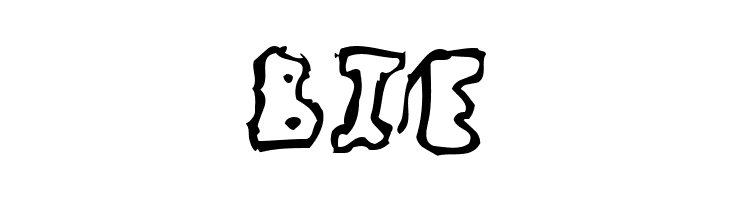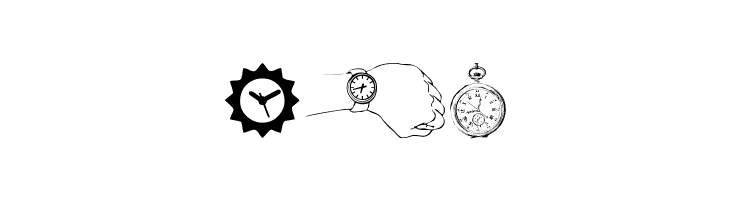
--wATCHMEn-- Font
A bold, modern font with thick strokes and tight spacing, perfect for impactful headlines.
Watchword Bold Demo Font
A bold, modern sans-serif font with clean lines and uniform strokes.
Watchtower Font
A bold, geometric font with a modern and impactful style.
DamagedSataLightExtended Font
A decorative and artistic font with high contrast and intricate details.
Watchword Regular Demo Font
A modern sans-serif font with geometric structure and balanced appearance.
DamagedSataLight Font
A sharp, edgy font with a distressed, dynamic appearance.
Watchtower 3D Italic Font
A bold, italic, 3D font with a modern and dynamic style.
Watchtower Middle Font
A bold, geometric font with a modern, condensed style.
Watchtower Expanded Font
A bold, geometric font with tall, narrow characters and sharp angles.
Time to get a Watch Font
A steampunk-inspired font featuring clockwork and mechanical elements.
Watchtower Halftone Italic Font
A bold, italicized font with a halftone effect, perfect for dynamic and modern designs.
Watchword Thin Demo Font
A sleek, minimalist font with thin, uniform strokes and a modern aesthetic.
A Childish Wonders Font
A playful, whimsical font with a mix of bold and thin strokes, ideal for creative projects.
Watchtower Drop Font
A bold, geometric font with a condensed and modern style.
smart watch Font
A modern, geometric font with rounded edges and consistent strokes.
Watchtower Bold Font
A bold, blocky font with tight spacing and strong visual impact.
watching t.v Font
A playful, handwritten font with uneven strokes and irregular letterforms.
Watchtower Expanded Italic Font
A bold, expanded, and italicized font with a modern and dynamic style.
Watchtower Regular Font
A bold, geometric font with strong, angular lines and uniform stroke widths.